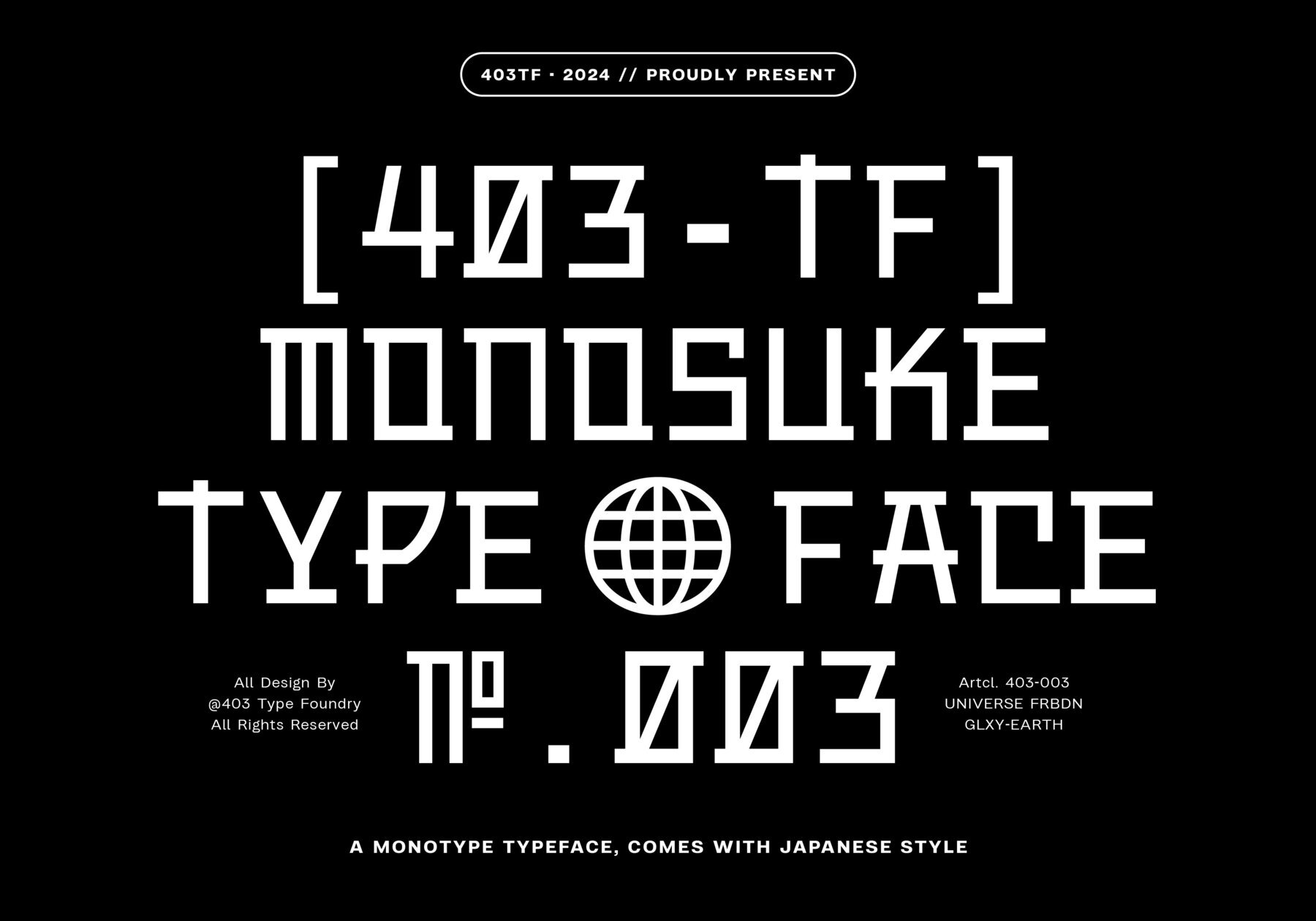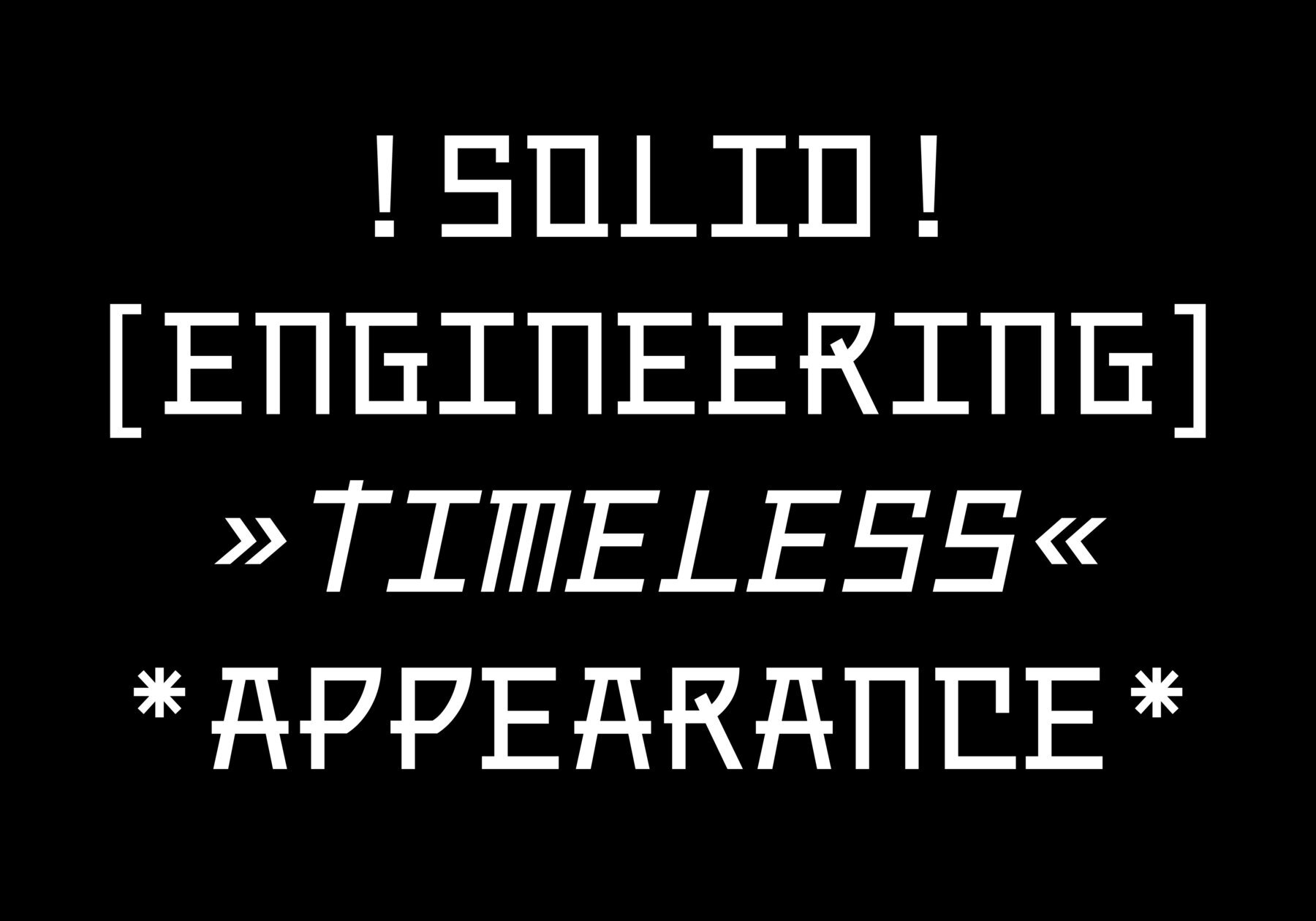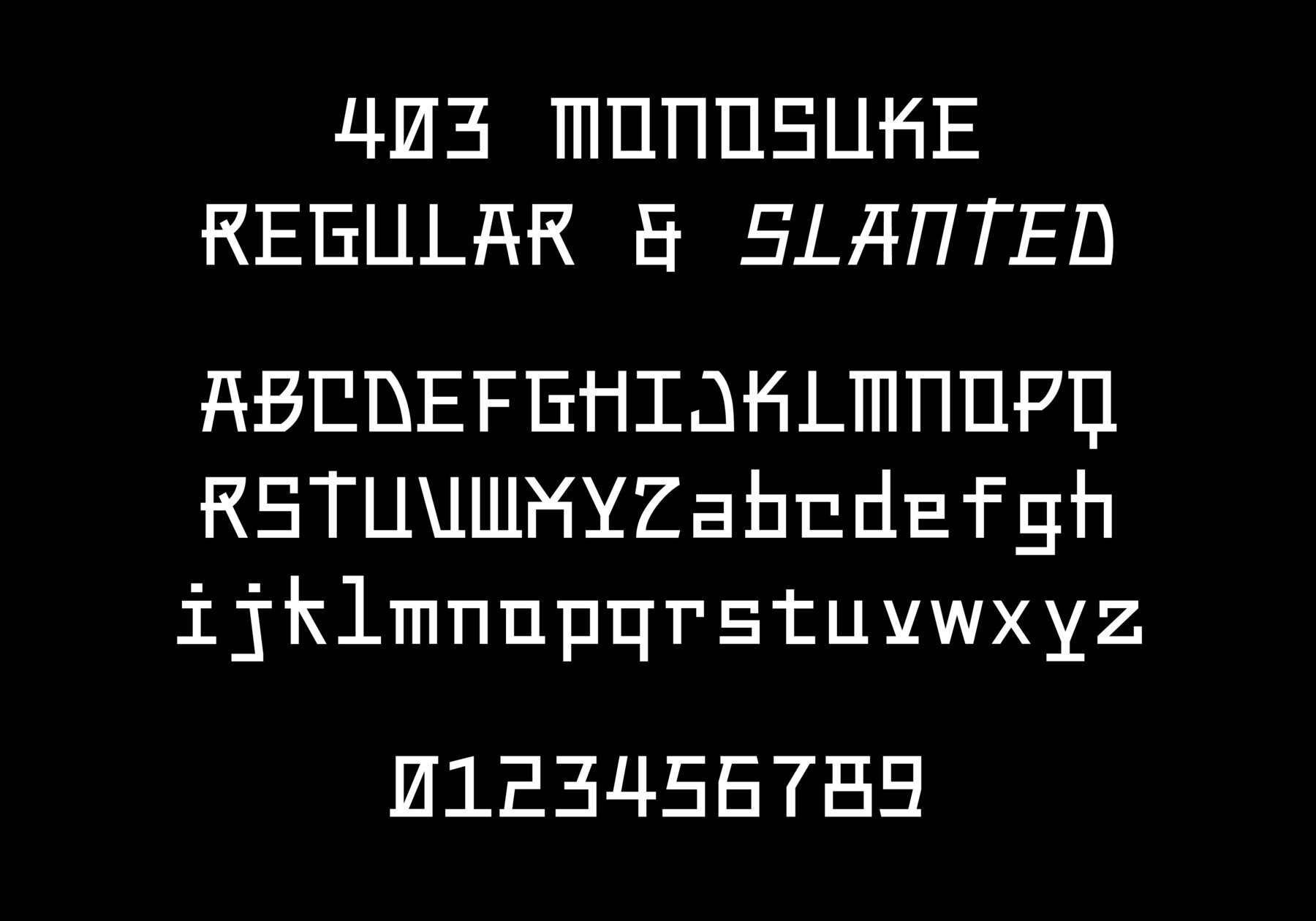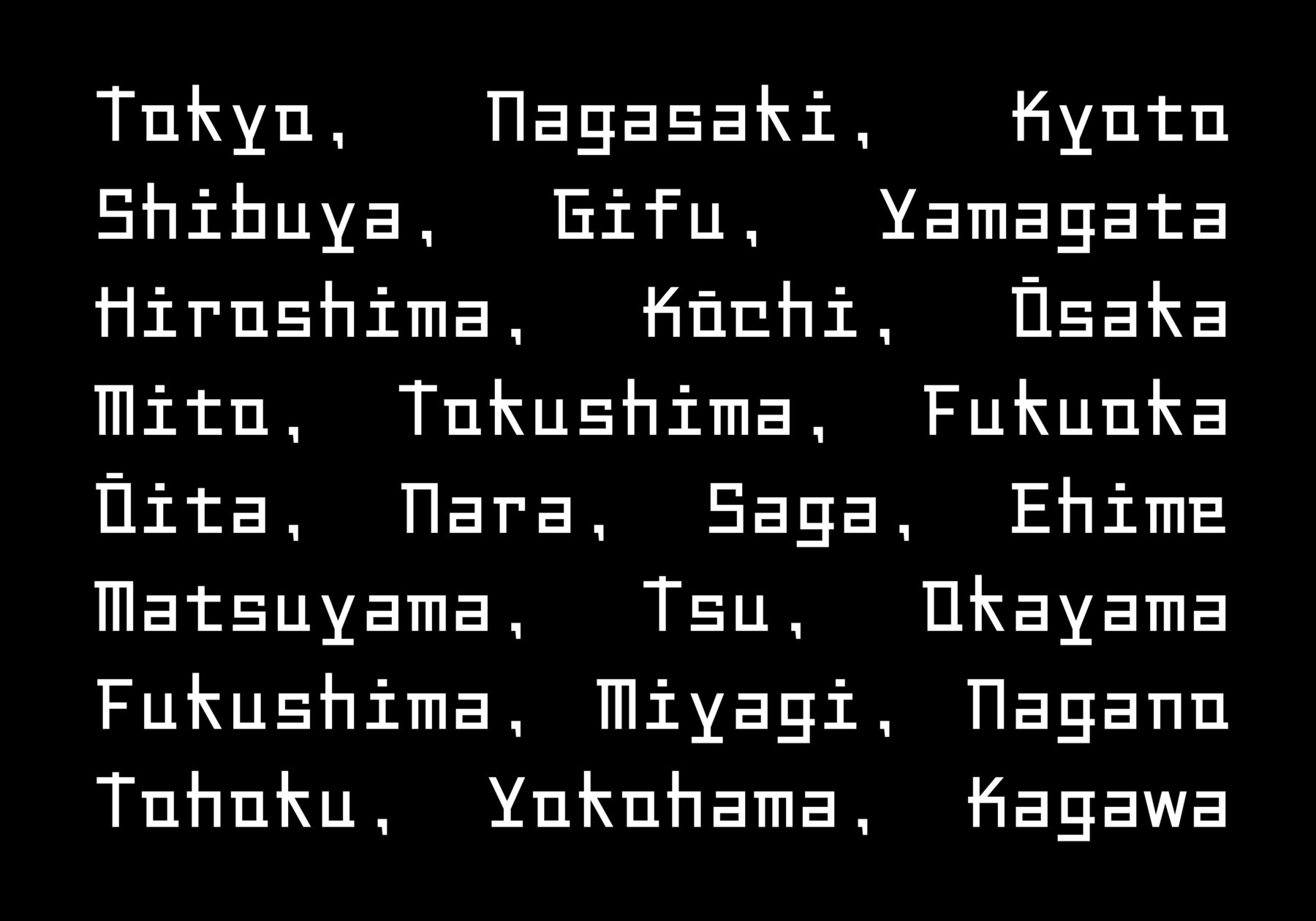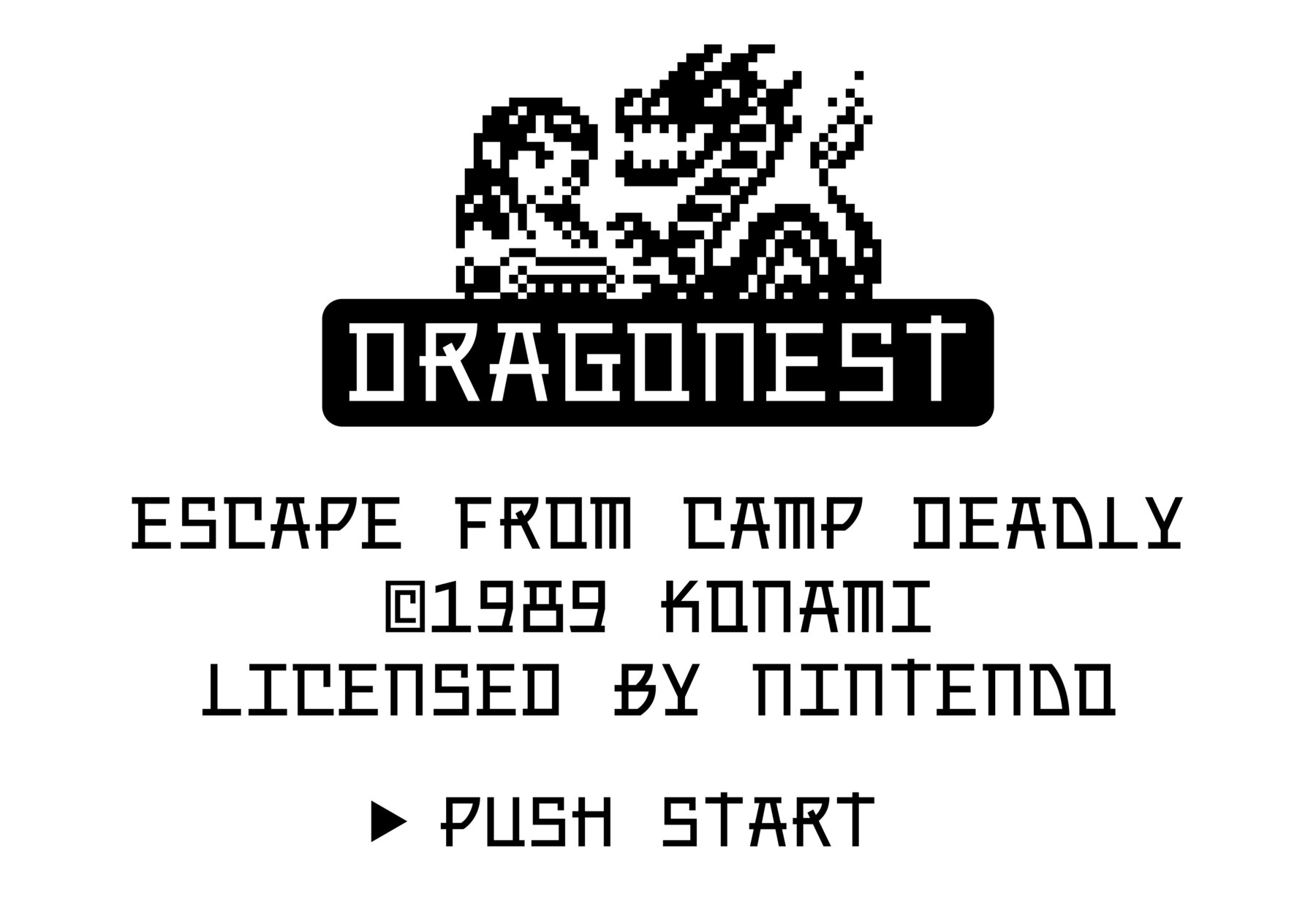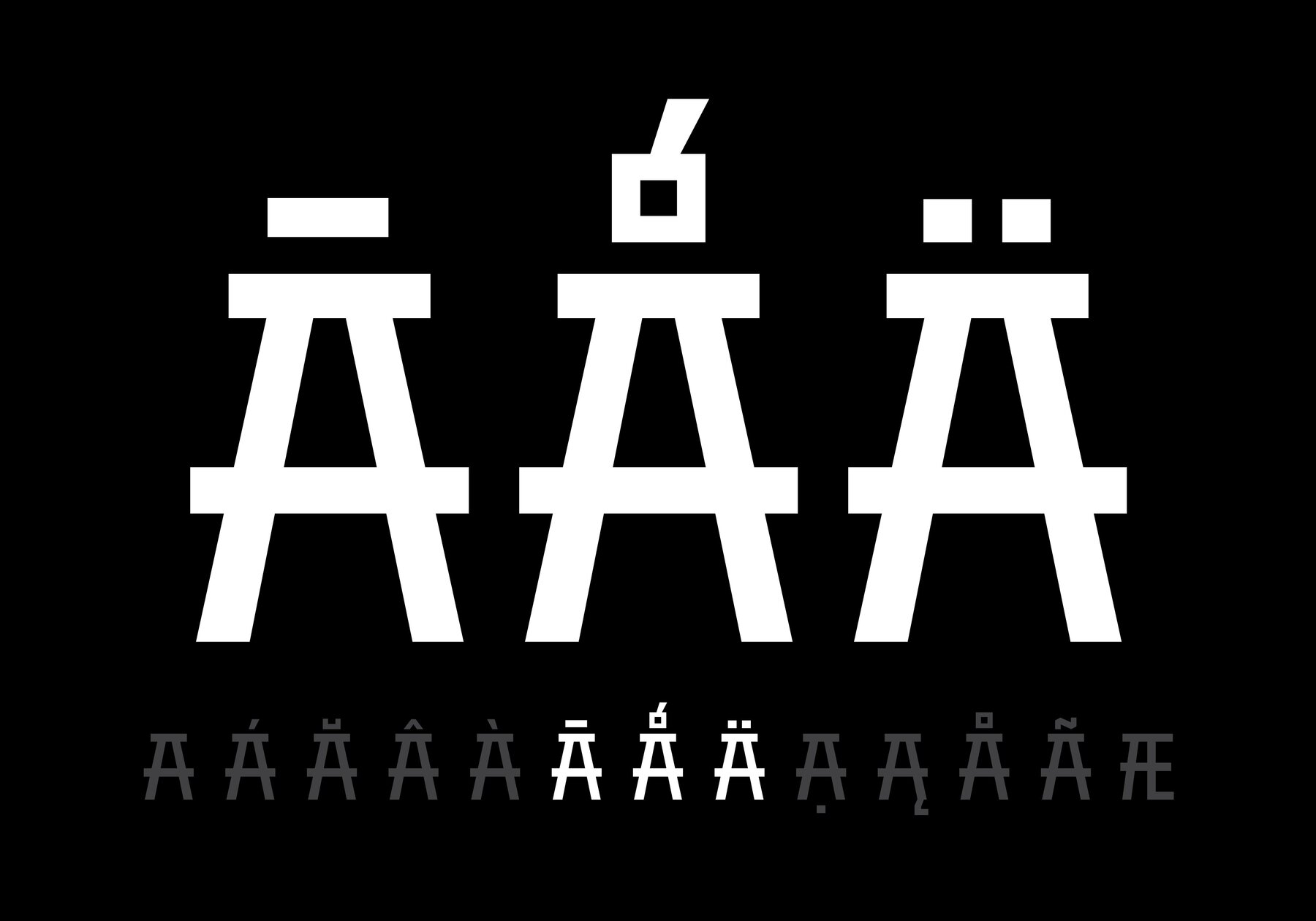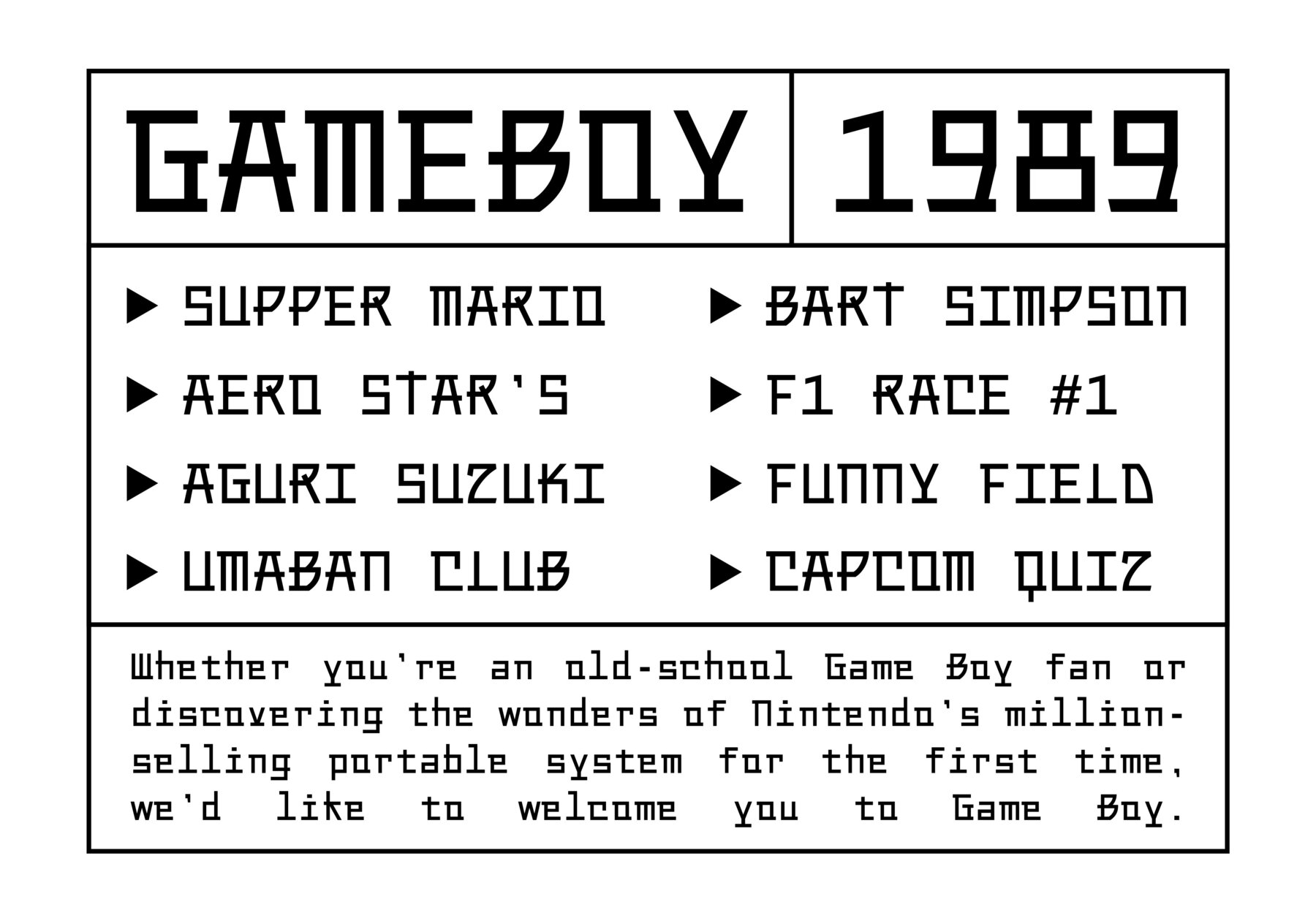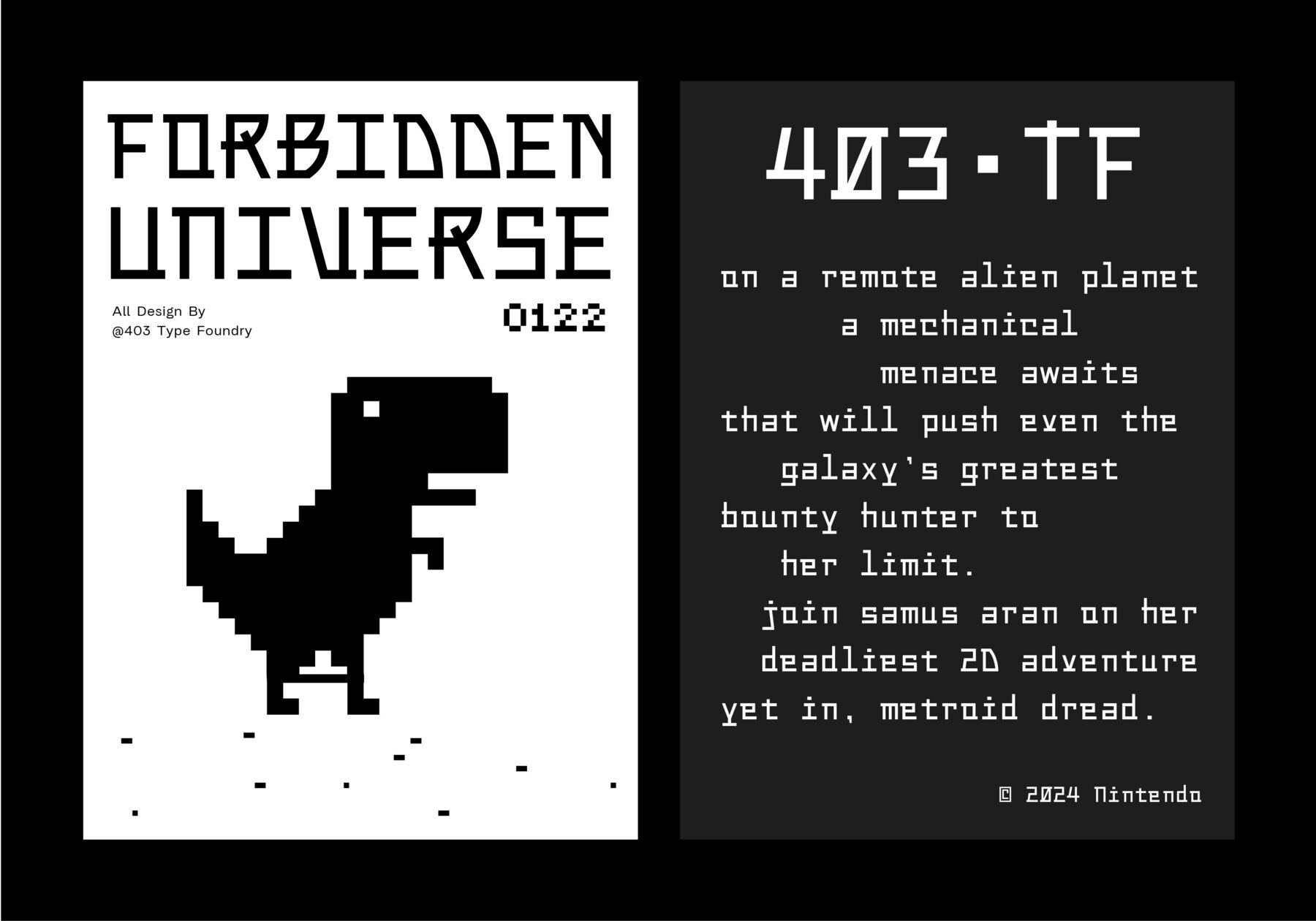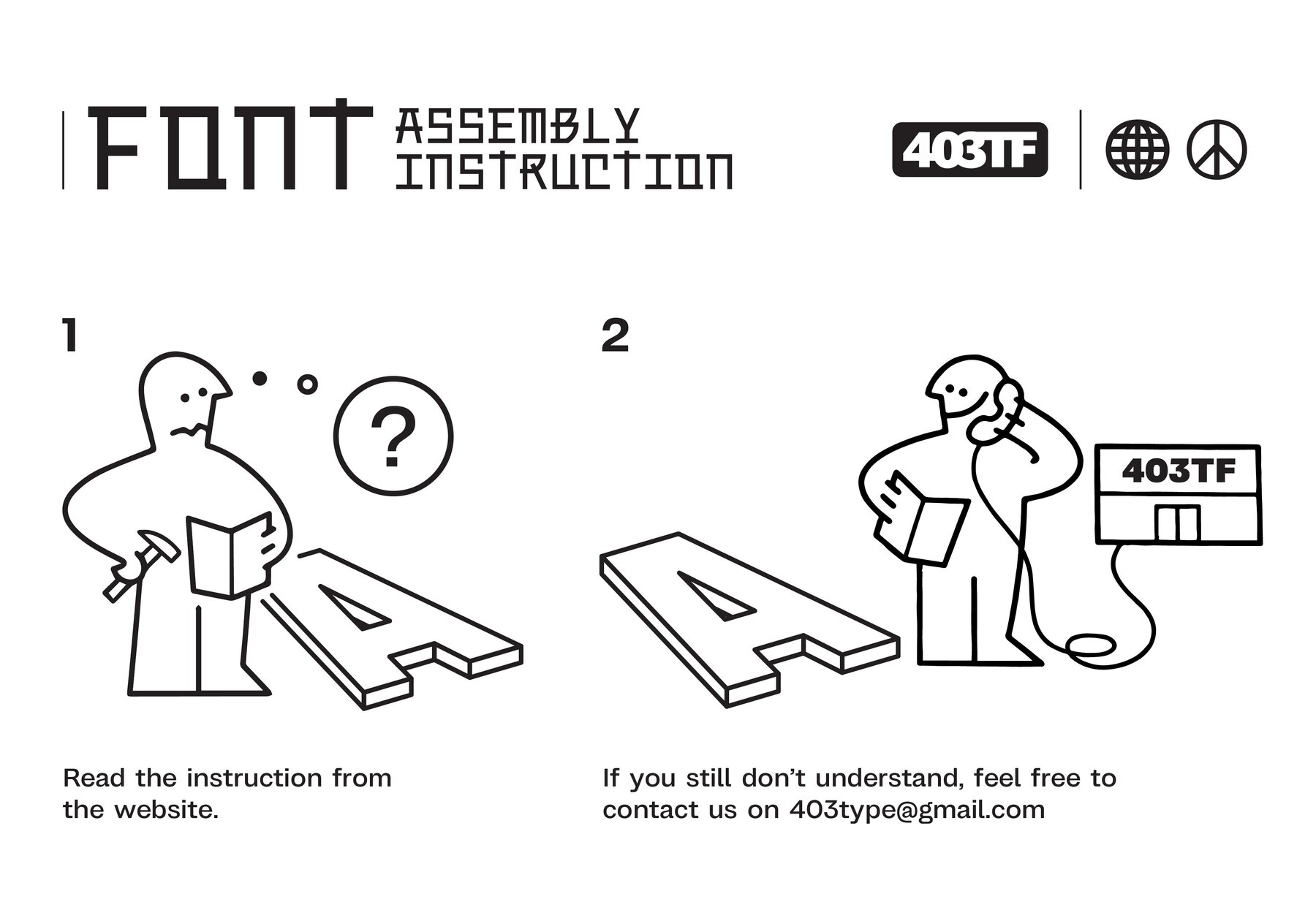
403 Monosuke Font
Inspired by the minimalist aesthetic of Japanese design, 403 Monosuke offers a contemporary take on the classic monospaced typeface. Its clean lines and consistent character spacing create a sense of order and clarity, reminiscent of traditional Japanese typography. While the single-weight design might limit its versatility in certain contexts, it reinforces the typeface's strong and focused character. The inclusion of both regular and slanted styles provides additional flexibility, allowing for a variety of typographic treatments. Overall, 403 Monosuke is a well-executed typeface that successfully blends modern design sensibilities with the timeless elegance of Japanese aesthetics.